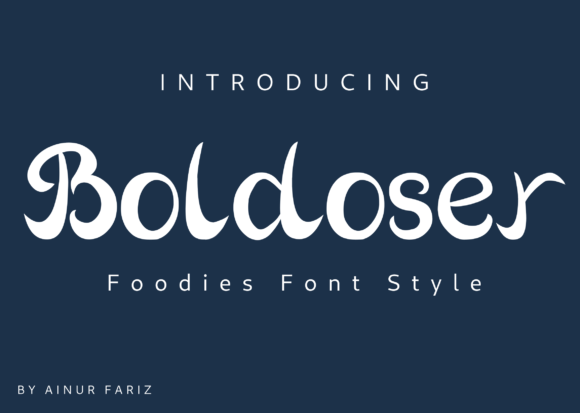
The Boldoser Font: A Trendy and Sweet Handwritten Delight
I’ll never forget the design moment when I fell head over heels in love with the Boldoser font. I was working on a project for a client who wanted a playful, yet sophisticated look for their branding. As I scrolled through font after font, nothing seemed quite right – until I stumbled upon Boldoser. Its unique, handwritten style immediately caught my eye, and I knew I had found the perfect fit. In this article, I’ll share my experience with Boldoser, its features, and how to make the most of this beautiful font.
An Honest Review of Boldoser
- ✨ Unique and original style: Boldoser’s handwritten look is both trendy and sweet, making it perfect for a variety of design projects.
- ✅ High-quality design: The font is well-crafted, with clean lines and a clear structure that makes it easy to read.
- 💕 Emotional connection: Boldoser’s friendly and approachable vibe makes it ideal for projects that require a personal touch.
While Boldoser is an excellent font, there are a few things to keep in mind:
- 🤔 Limited use in formal contexts: Due to its playful nature, Boldoser might not be the best choice for very formal or professional projects.
- ⚠️ Some letters may require adjustment: As with any font, you might need to adjust the spacing or kerning of certain letters to achieve the perfect look.
- Take advantage of stylistic alternates and glyphs to add more variety to your text.
The Backstory of Boldoser
Boldoser was designed with the intention of creating a unique, handwritten font that would bring a touch of personality to any design project. The designer aimed to craft a font that would be both trendy and sweet, making it perfect for a wide range of applications.
Q: What is Boldoser font?
A: Boldoser is a trendy and sweet looking handwritten font, perfect for adding a personal touch to your design projects.
Q: Is Boldoser suitable for formal projects?
A: While Boldoser is a beautiful font, its playful nature might make it less suitable for very formal or professional projects.